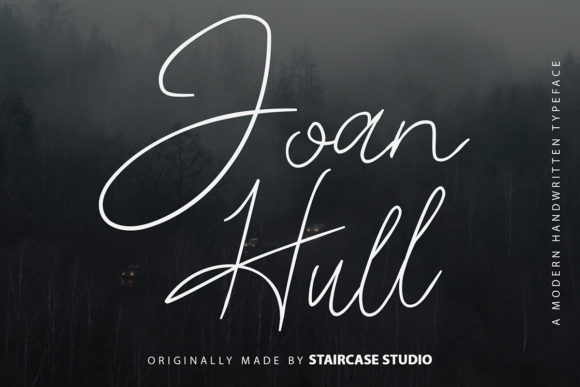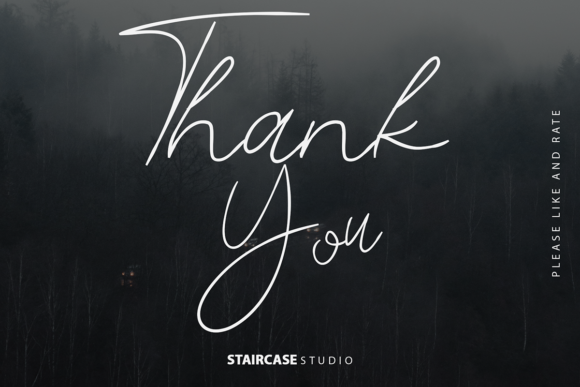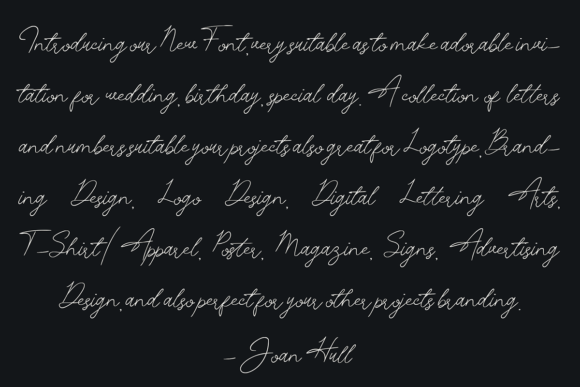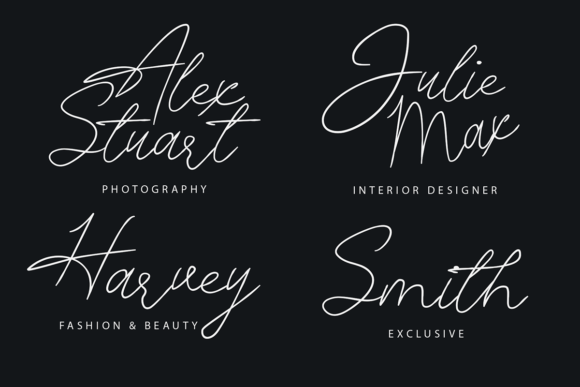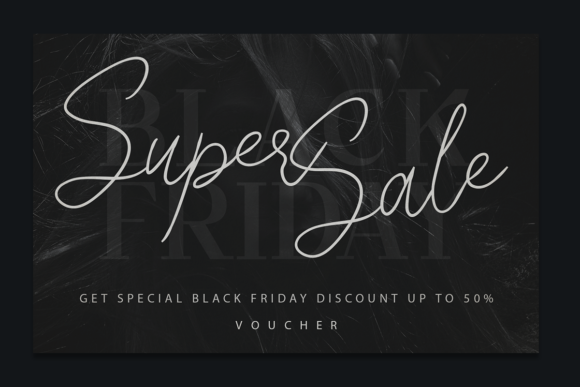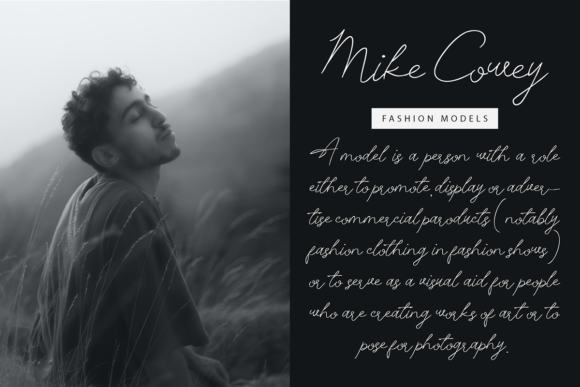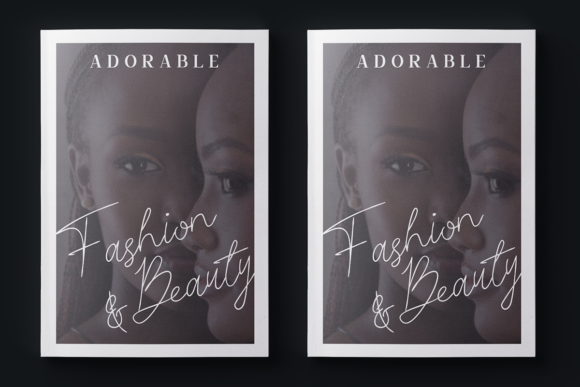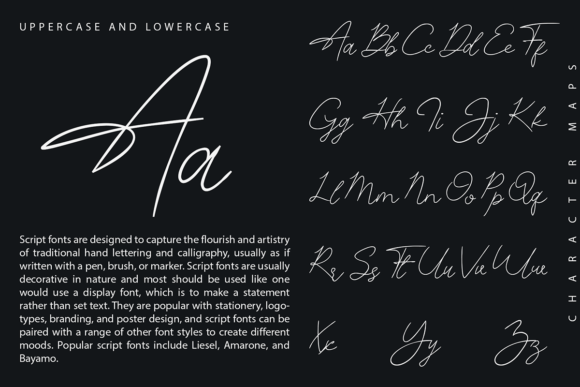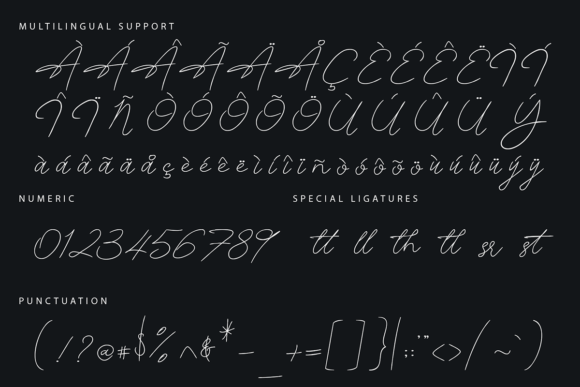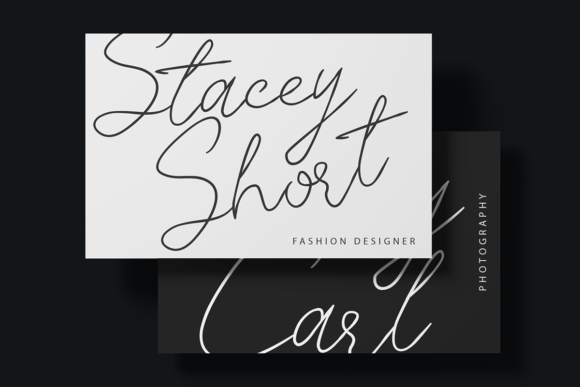
Joan Hull Font
About Joan Hull Font
Joan Hull is a modern and exquisite script font. A collection of letters and numbers suitable for your projects. Use it for logotypes, branding designs, logo designs, digital lettering arts, t-shirt/apparel, posters, magazines, signs, advertising, and so much more.